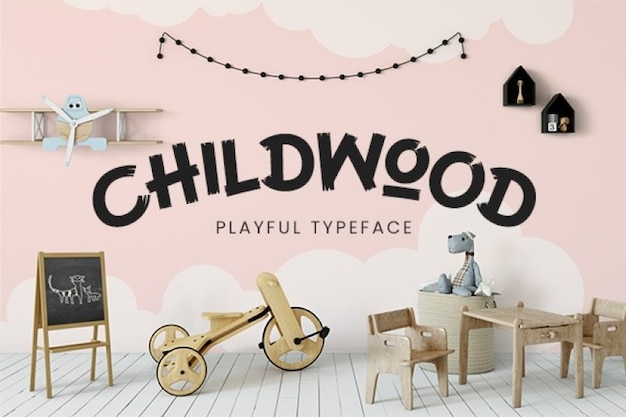
Childwood
Childwood Font
It's all fun and games until you have to decide how to present your project. If your project has a young, adventurous soul, you can't miss this Childwood font. Its irregularity and random notches make it cheerful and one of a kind. This playful typeface fits in many formats: merchandise, murals, posters, child book covers and others. Don't wait any longer and download it from Freepik!
Childwood Regular (400)
Childwood Rough (400)